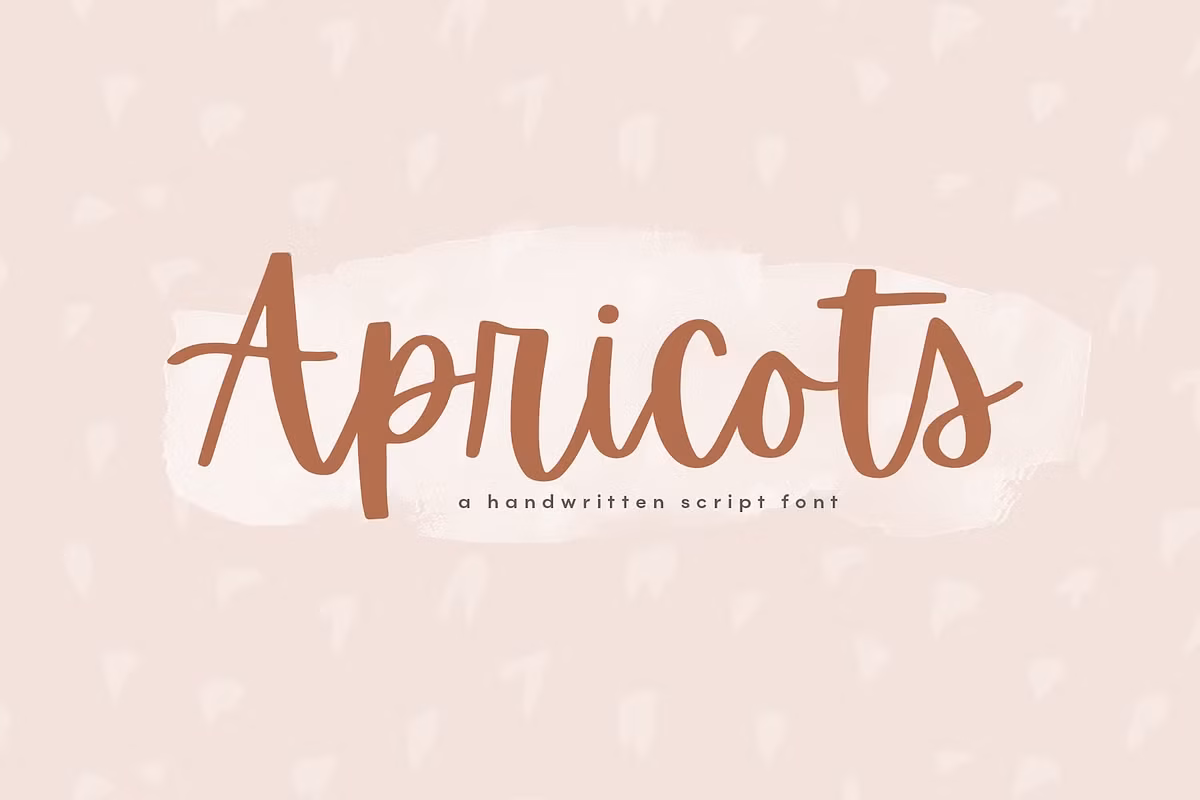
Please note that you must purchase this font for commercial use. You can download Apricots – A Handwritten Script Font for free, strictly for personal testing purposes only. Apricots is a charming and elegant handwritten script font that exudes warmth and personality. With its flowing strokes and fluid curves, Apricots Font Free Download is perfect for creating personal, artistic designs, such as invitations, branding, logos, social media posts, and greeting cards.
The font has a natural, hand-drawn feel that adds an intimate, creative touch to any project. It includes uppercase and lowercase letters, numerals, punctuation, and multilingual support, offering flexibility for a variety of design needs.
Whether you're designing for a whimsical brand, creating personal stationery, or adding a custom touch to your social media content, Apricots brings beauty, creativity, and charm to your typography.